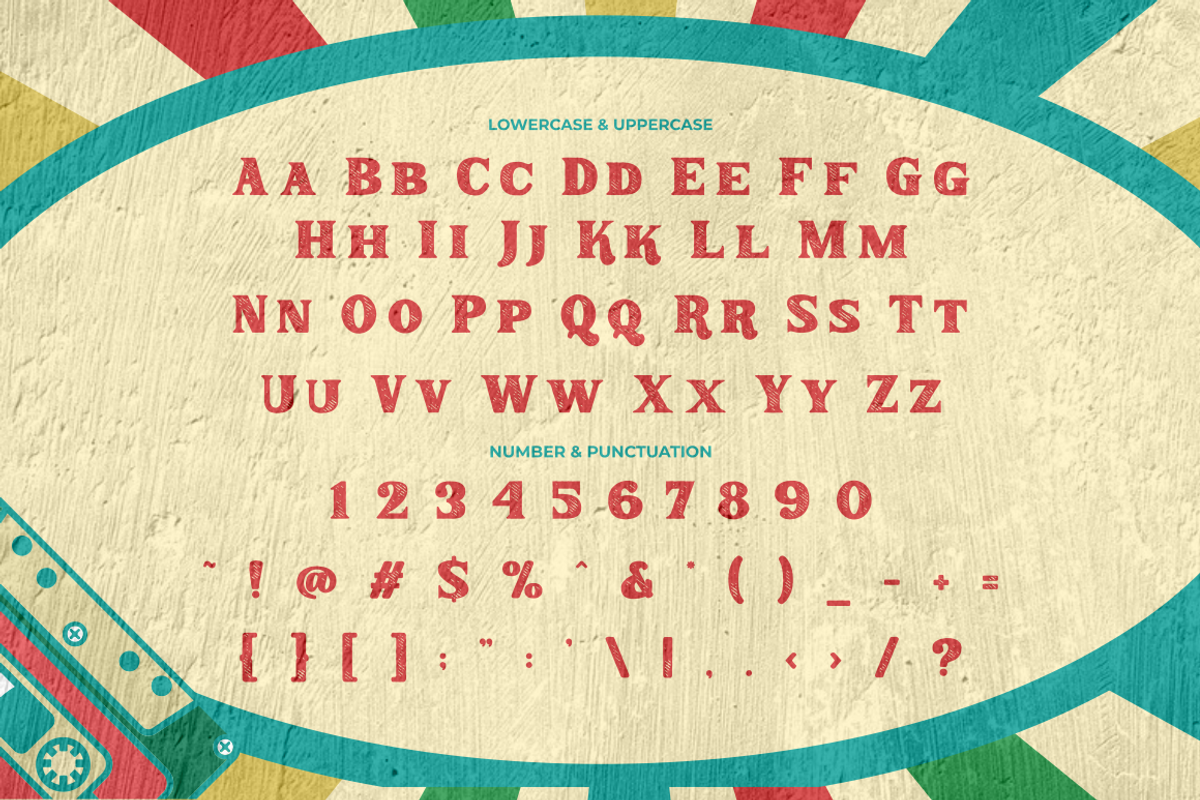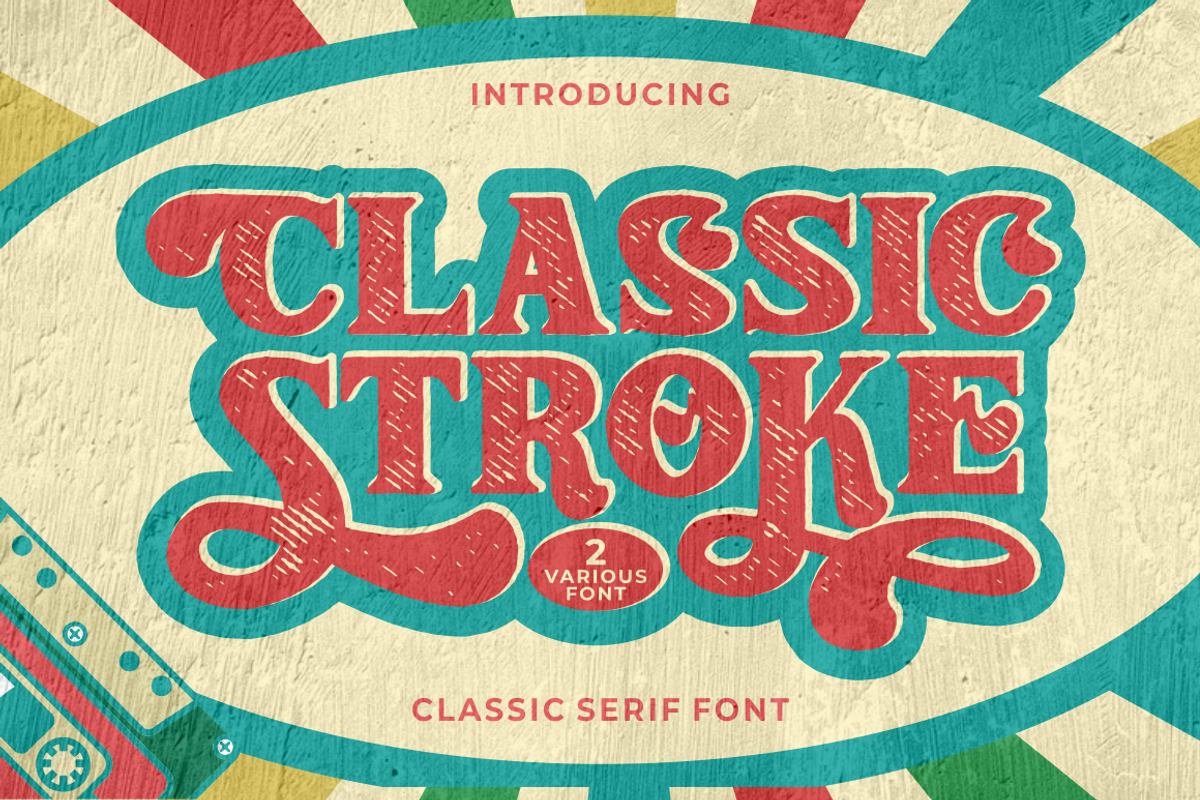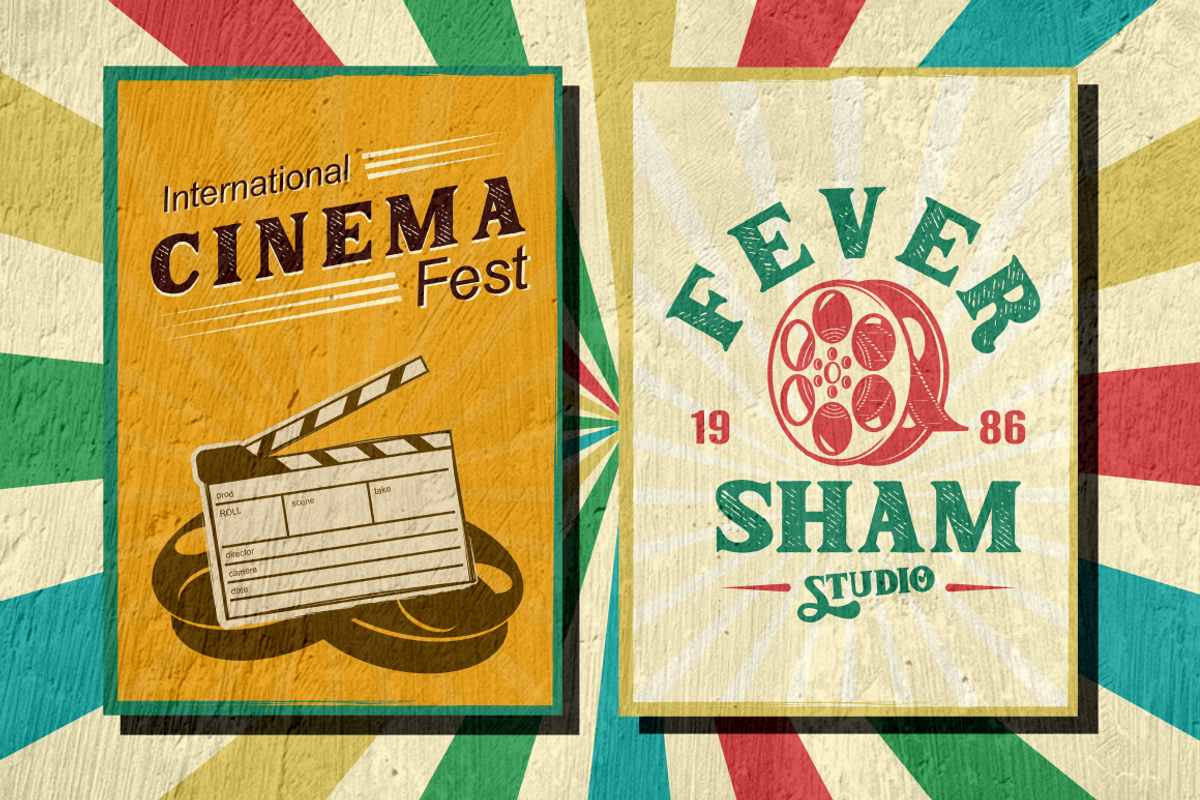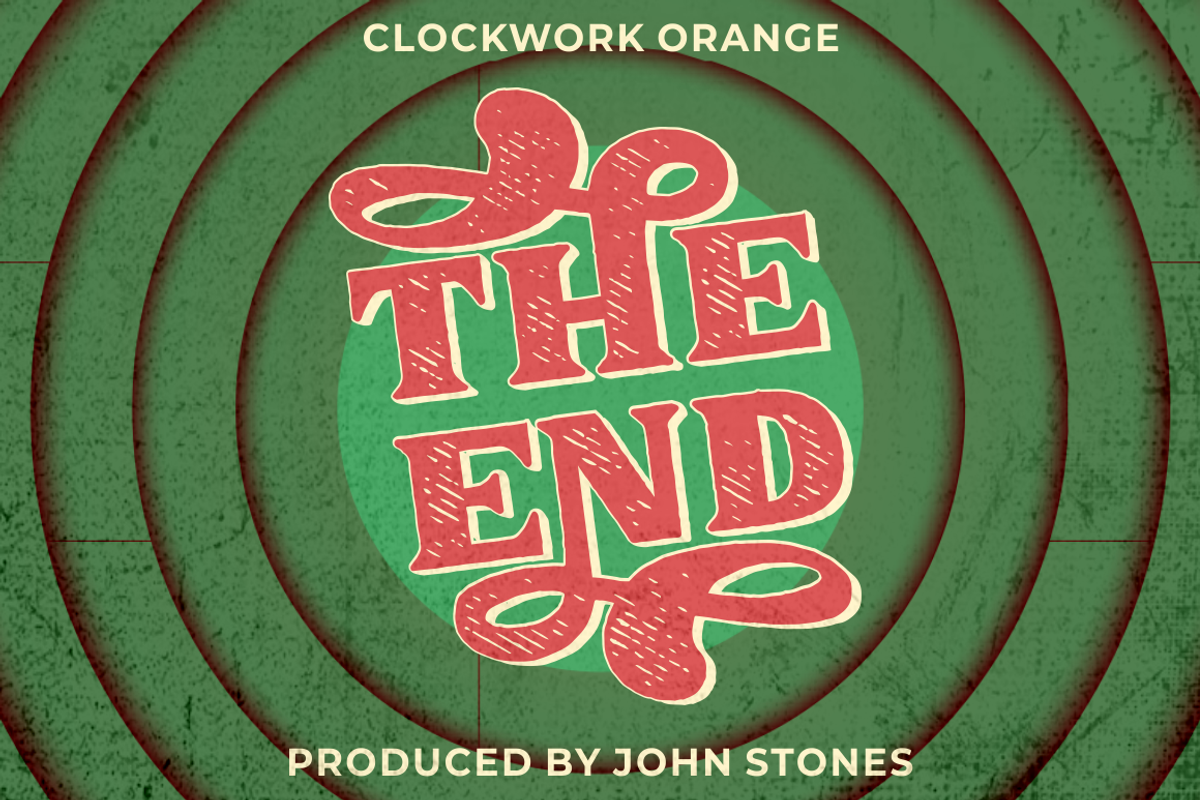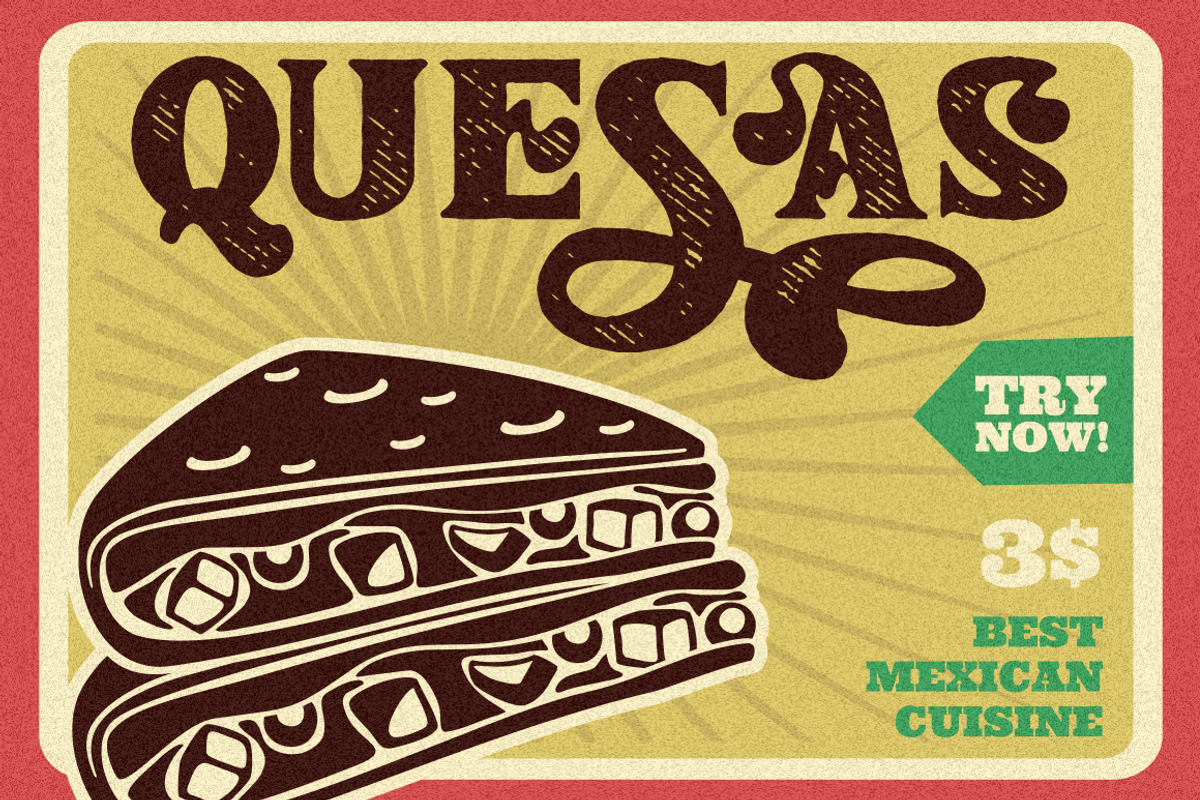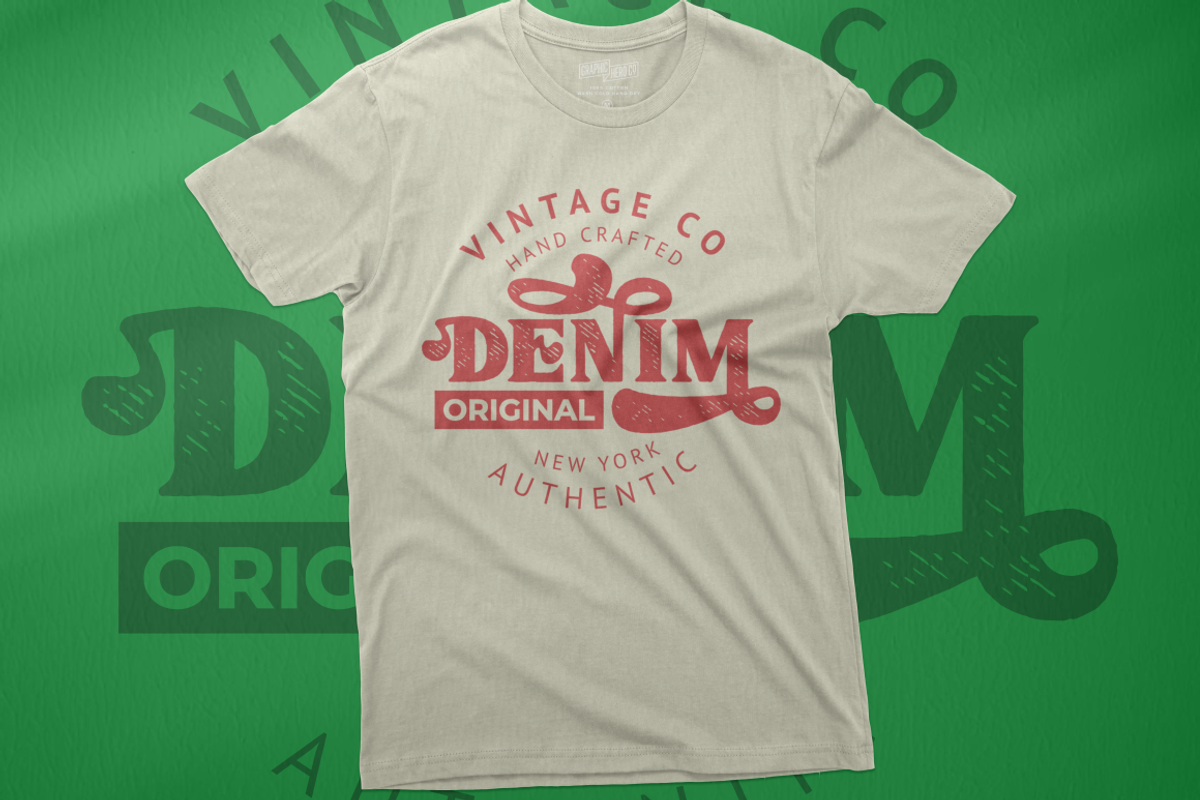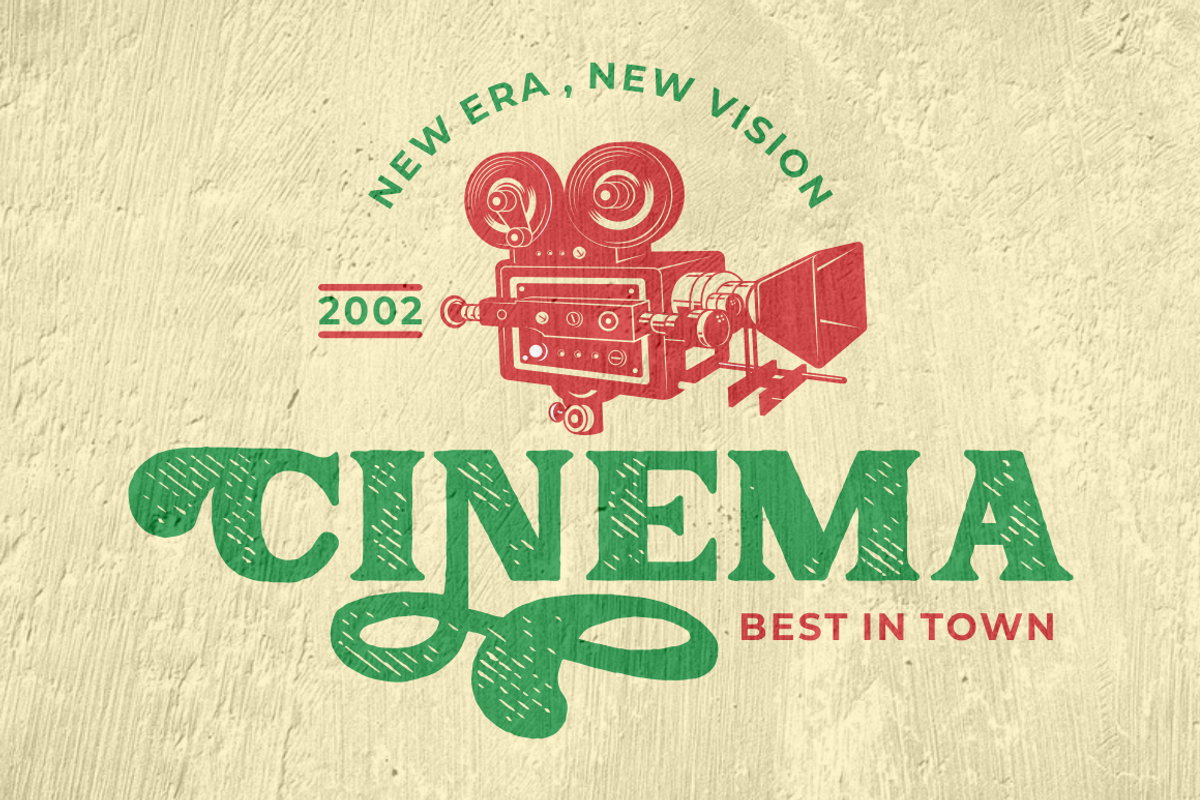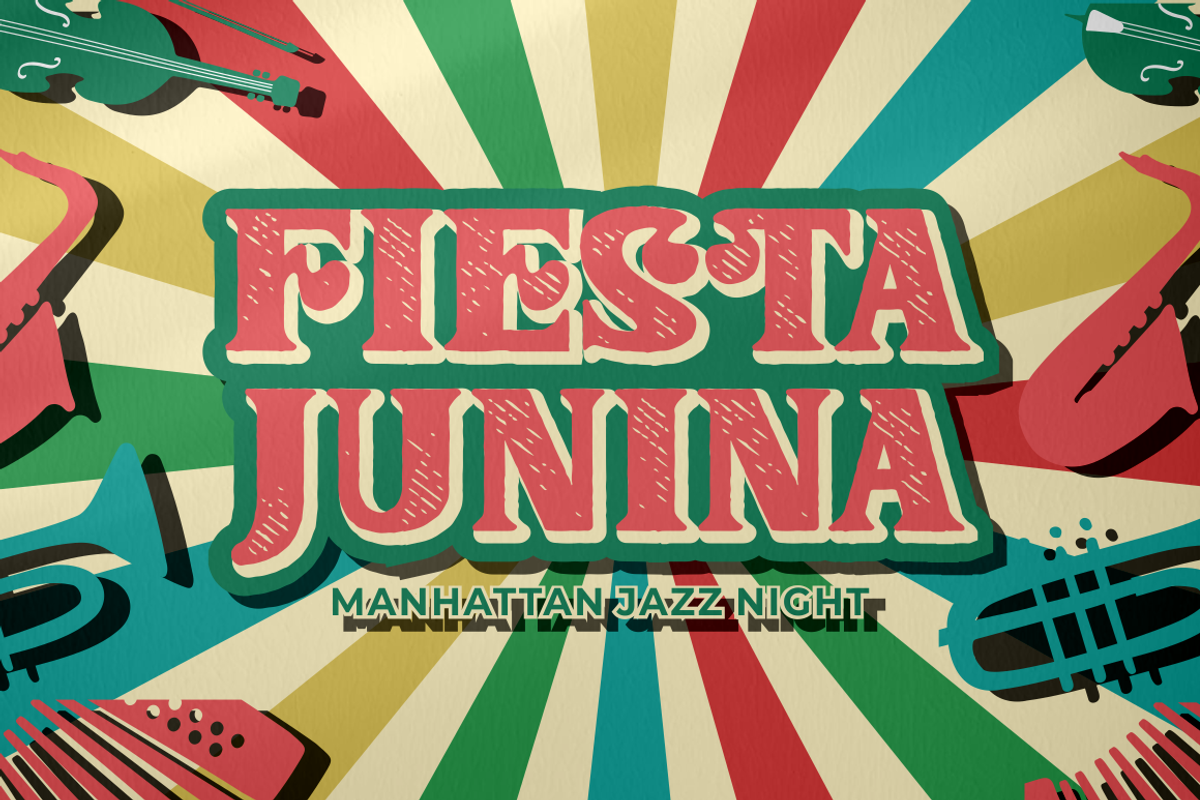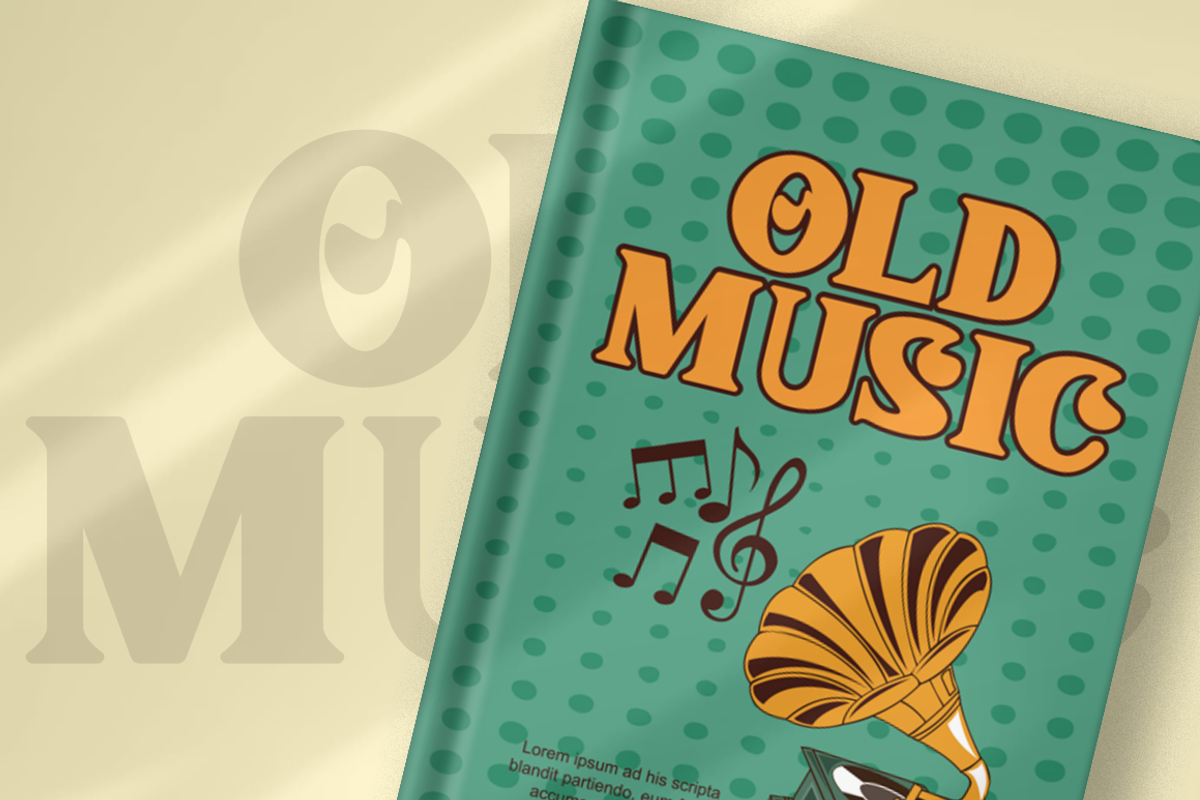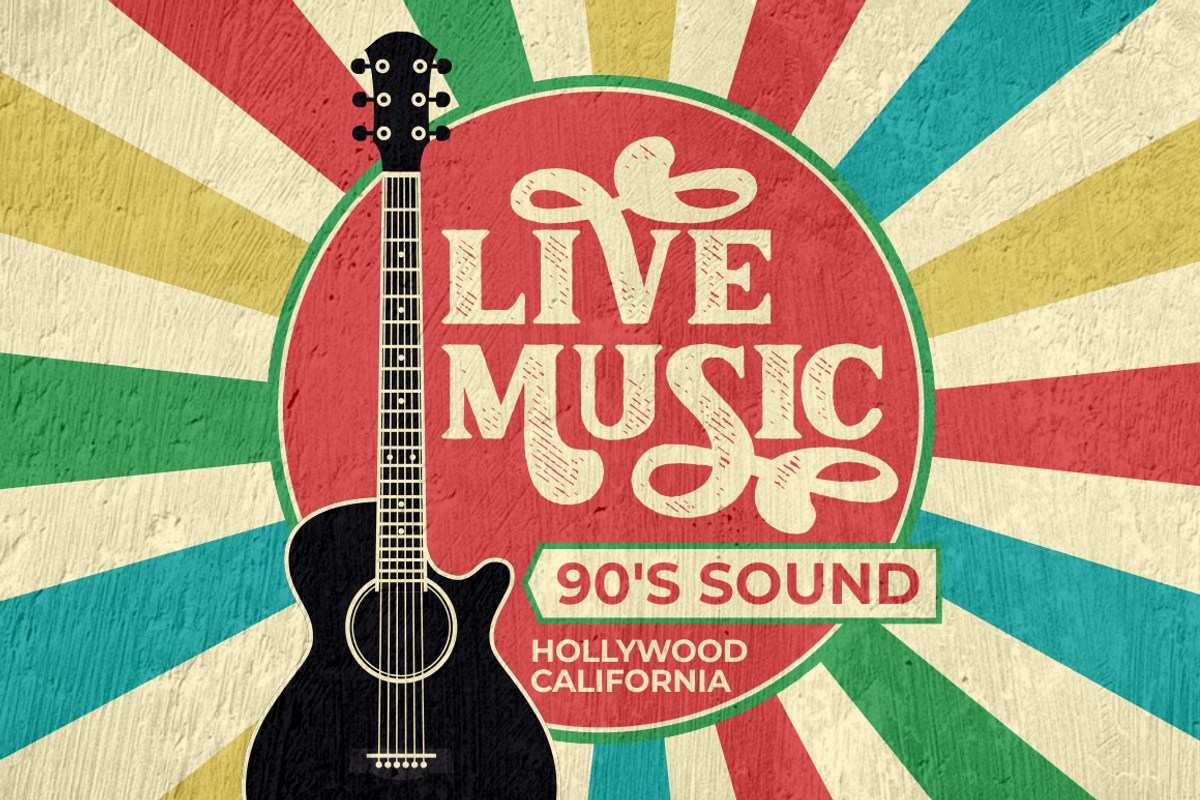
Classic Stroke - Classic Serif Font
Classic Stroke - Classic Serif Font is a timeless and bold font that exudes the elegance of classic typography. With its numerous alternate characters, it offers versatility and creative possibilities. The font's classic style is deeply rooted in tradition, making it an excellent choice for various design applications. With two versions available, clean and textured, Classic Stroke is perfect for all kinds of products, designs, or branding with classic, retro, or vintage themes.
The classic serif style of Classic Stroke embodies the essence of traditional typography, giving your designs a refined and sophisticated look. Its bold strokes and clean lines create a strong visual impact, ensuring that your text stands out and commands attention. The inclusion of alternate characters adds a touch of uniqueness and allows you to customize your designs, making it a truly one-of-a-kind typographic solution.
With its classic and versatile nature, Classic Stroke - Classic Serif Font is the perfect choice for all kinds of projects. Whether you're designing a vintage-inspired logo, creating elegant posters, or crafting timeless branding materials, this font will elevate your designs with its classic appeal. Its adaptability to various themes like retro and vintage makes it a valuable asset for social media graphics and film titles, adding a touch of nostalgia and sophistication to your visual content.